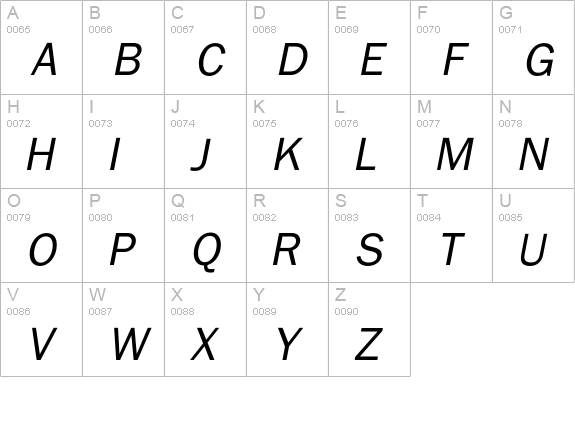
FranklinBookItalic Font Details
FranklinBookItalic is a classic and elegant font that exudes sophistication and versatility. Its slanted italic design adds a touch of style and flair to any project, making it perfect for both formal documents and creative designs. The graceful curves and balanced proportions of FranklinBookItalic make it a timeless choice for a wide range of applications. What sets FranklinBookItalic apart is that it is not only beautiful and versatile but also completely free to download. You can easily access this stunning font at FontsMarket.com, where you can enhance your projects with its refined aesthetic without any cost. Whether you're working on a professional presentation, a stylish invitation, or a captivating poster, FranklinBookItalic is sure to elevate your design and leave a lasting impression. Download this exquisite font today and bring a touch of elegance to your creations.